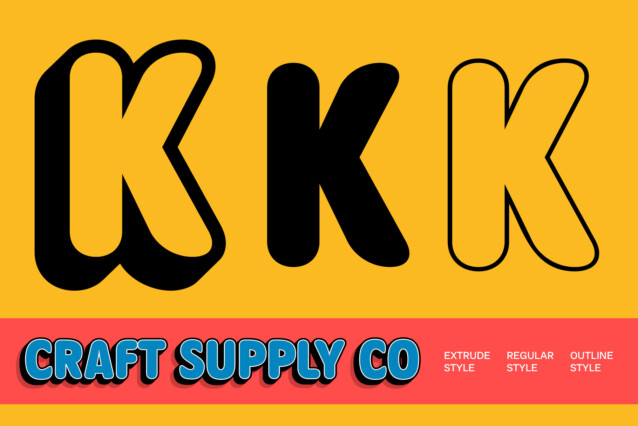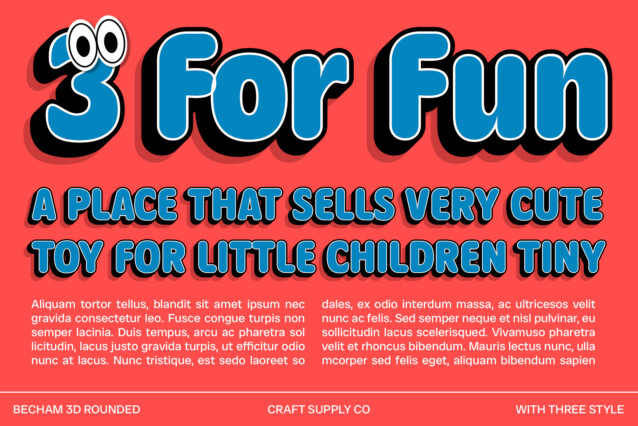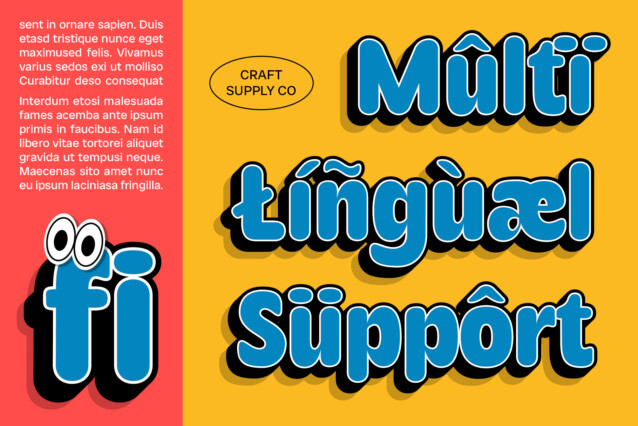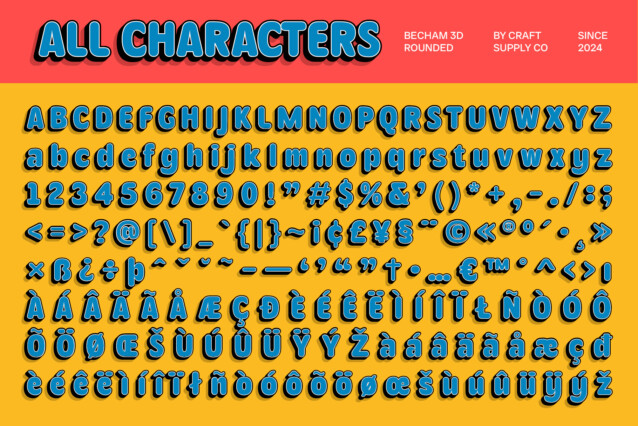
Becham Rounded 3D Font
Becham Rounded 3D Font is a modern sans-serif font that combines a bold form with a striking 3D effect. Its robust design delivers a solid and prominent impression, while the dimensional quality adds engaging visual depth.